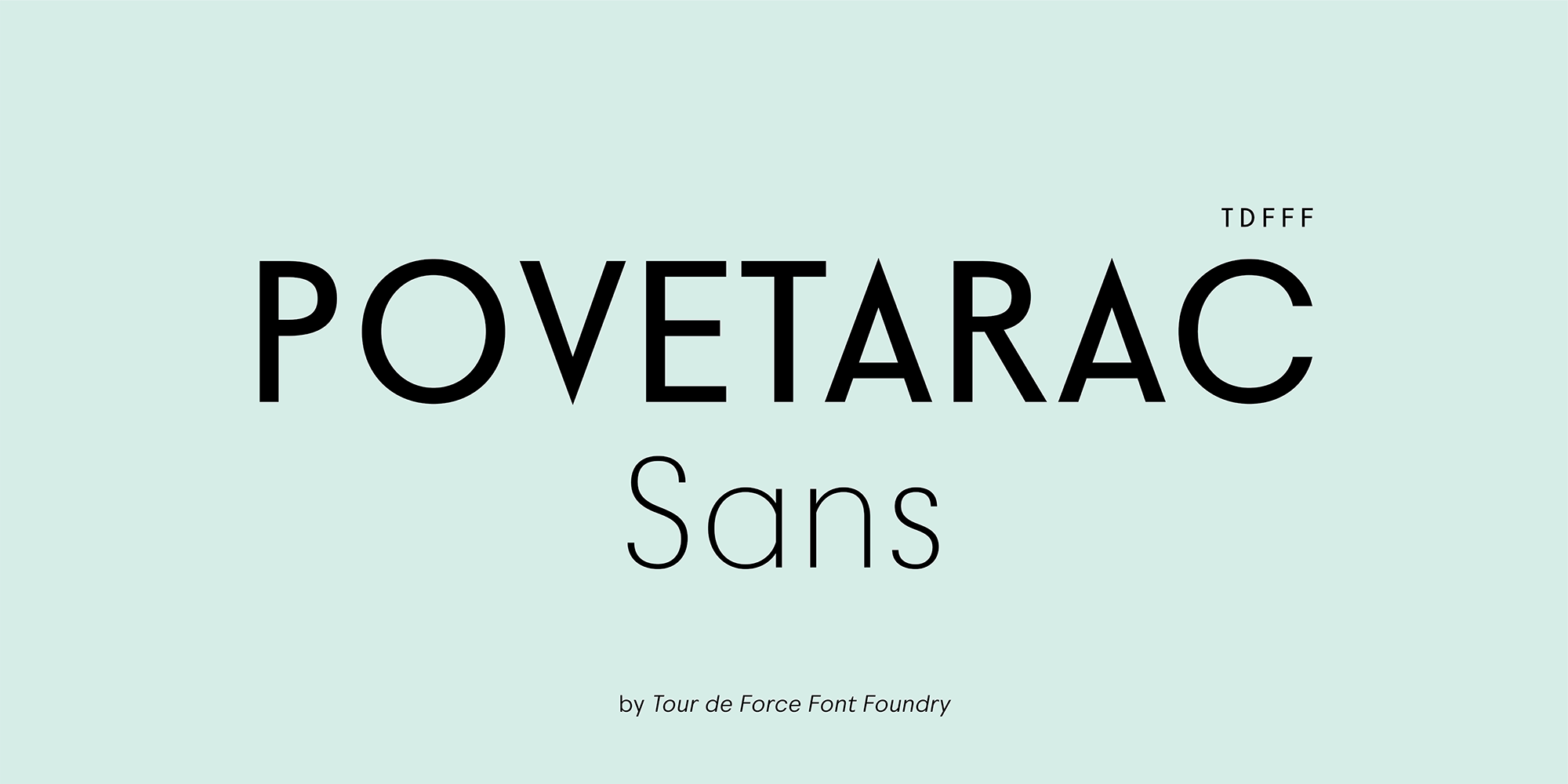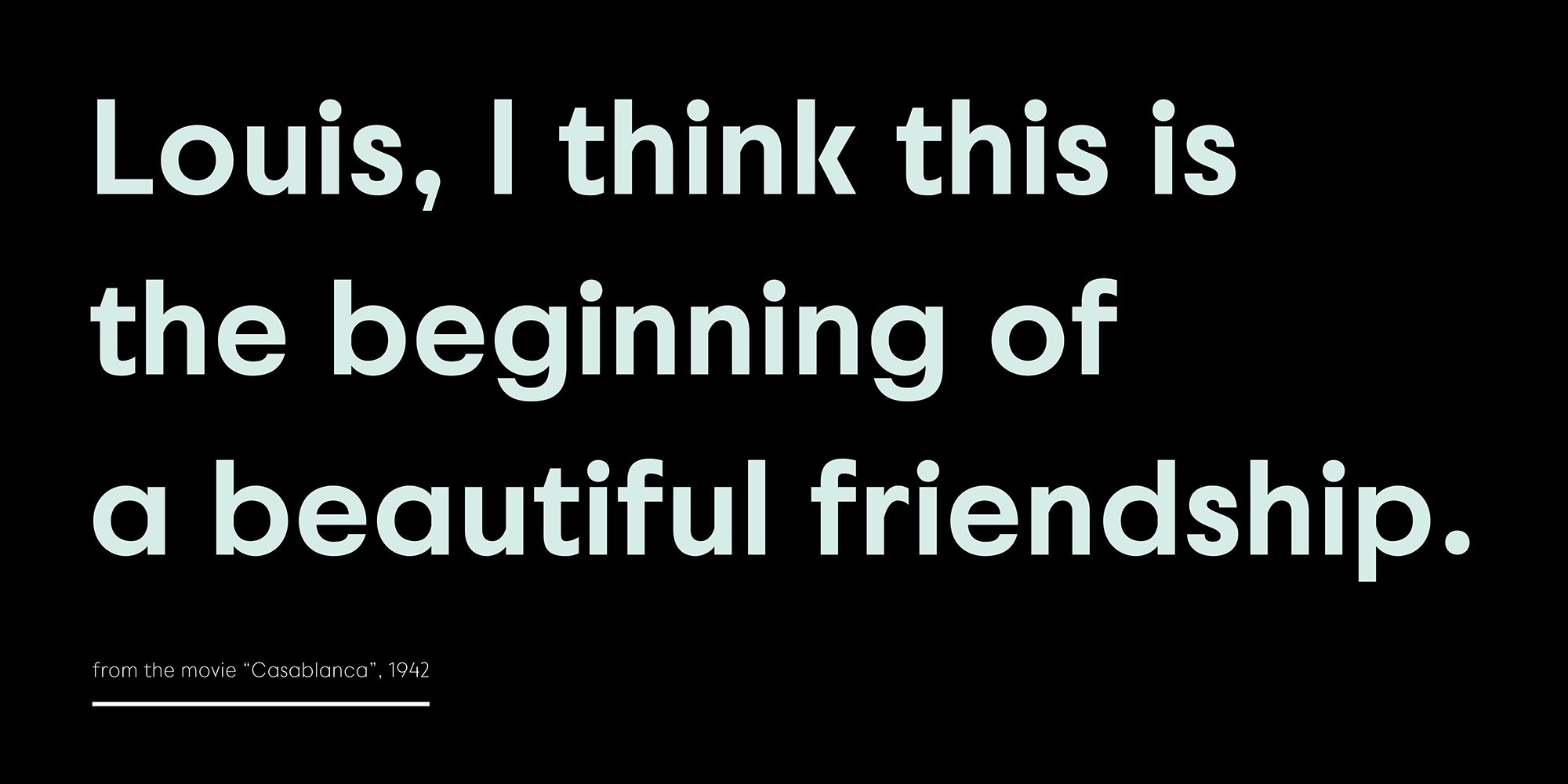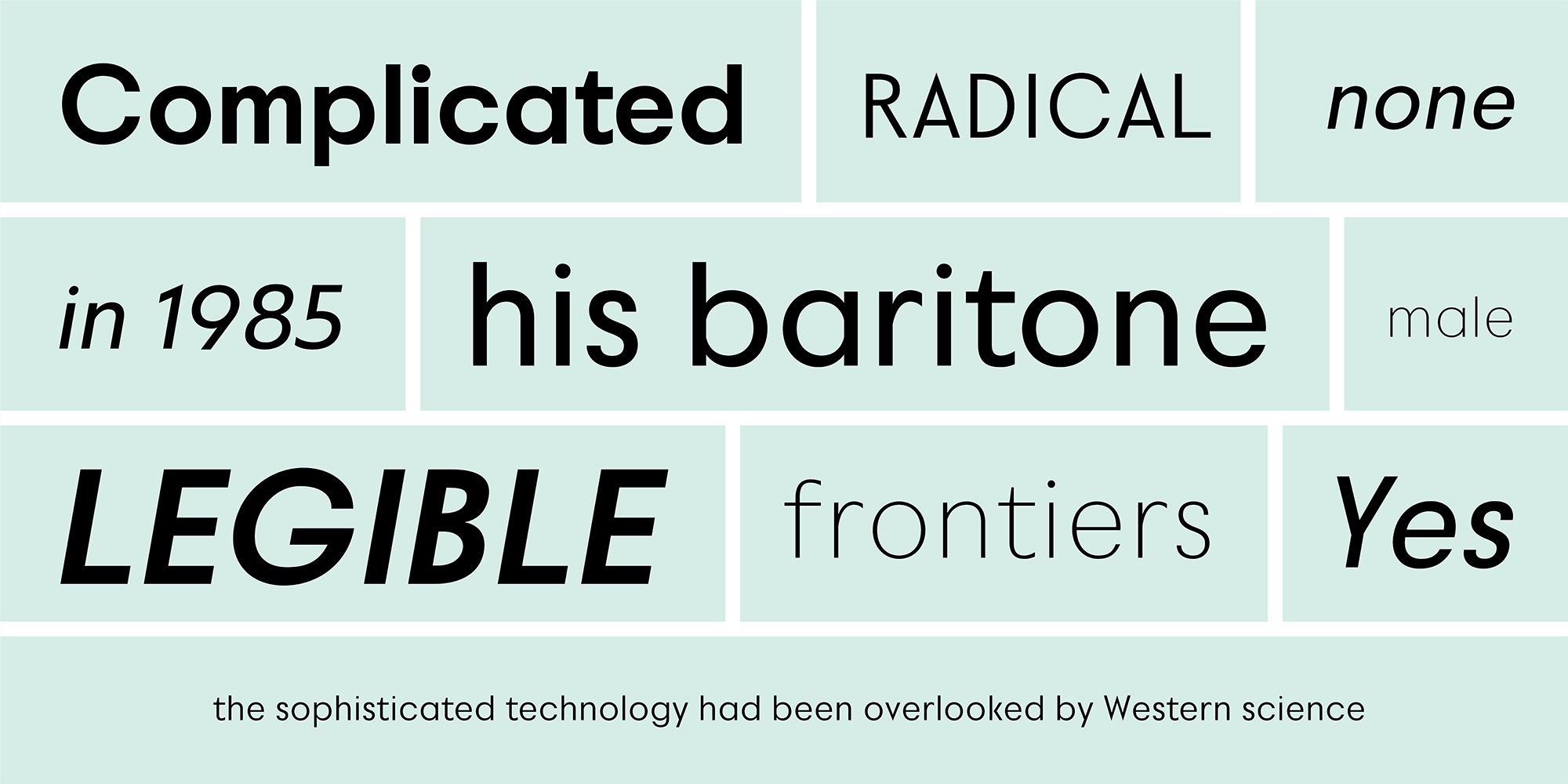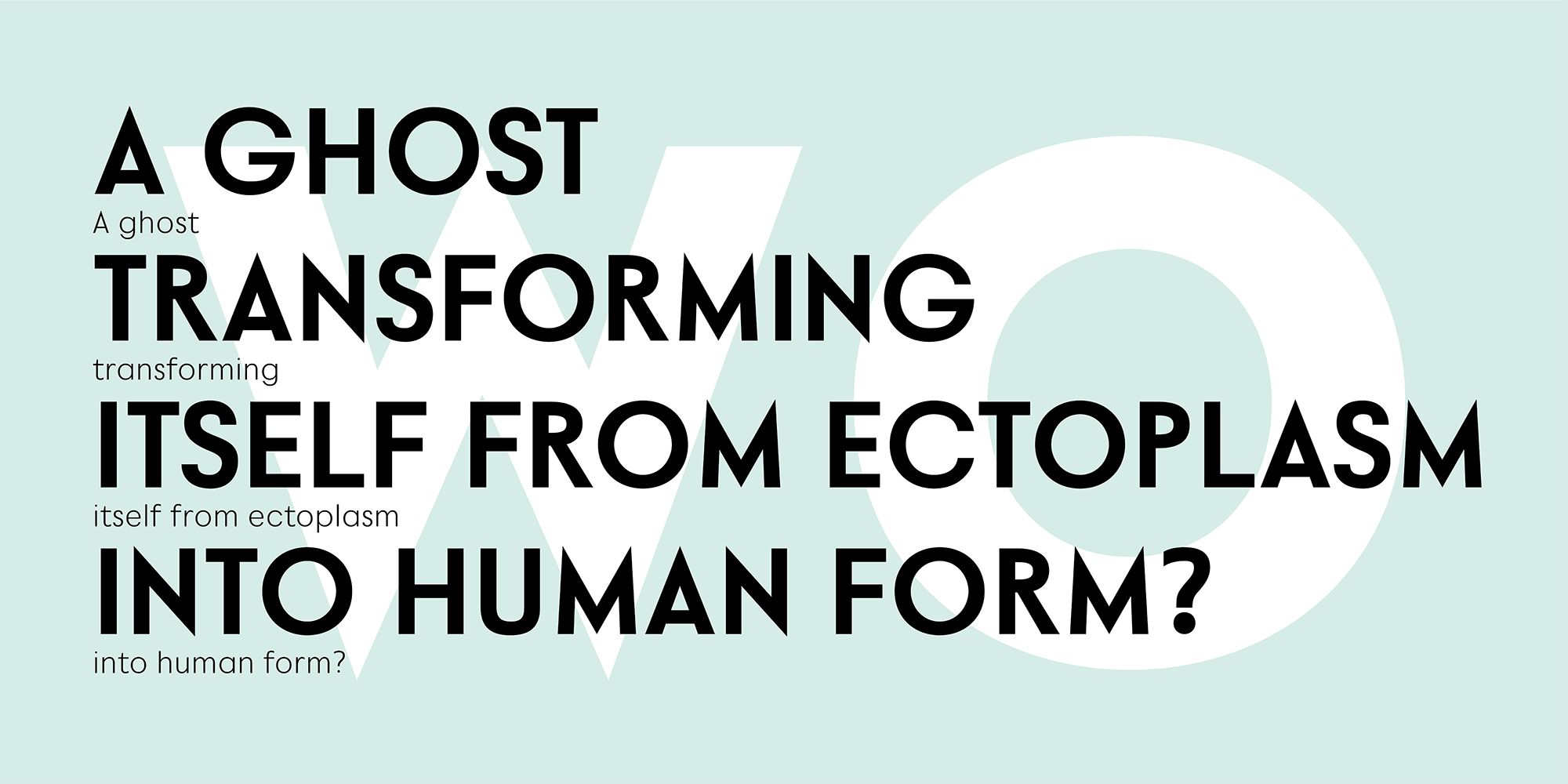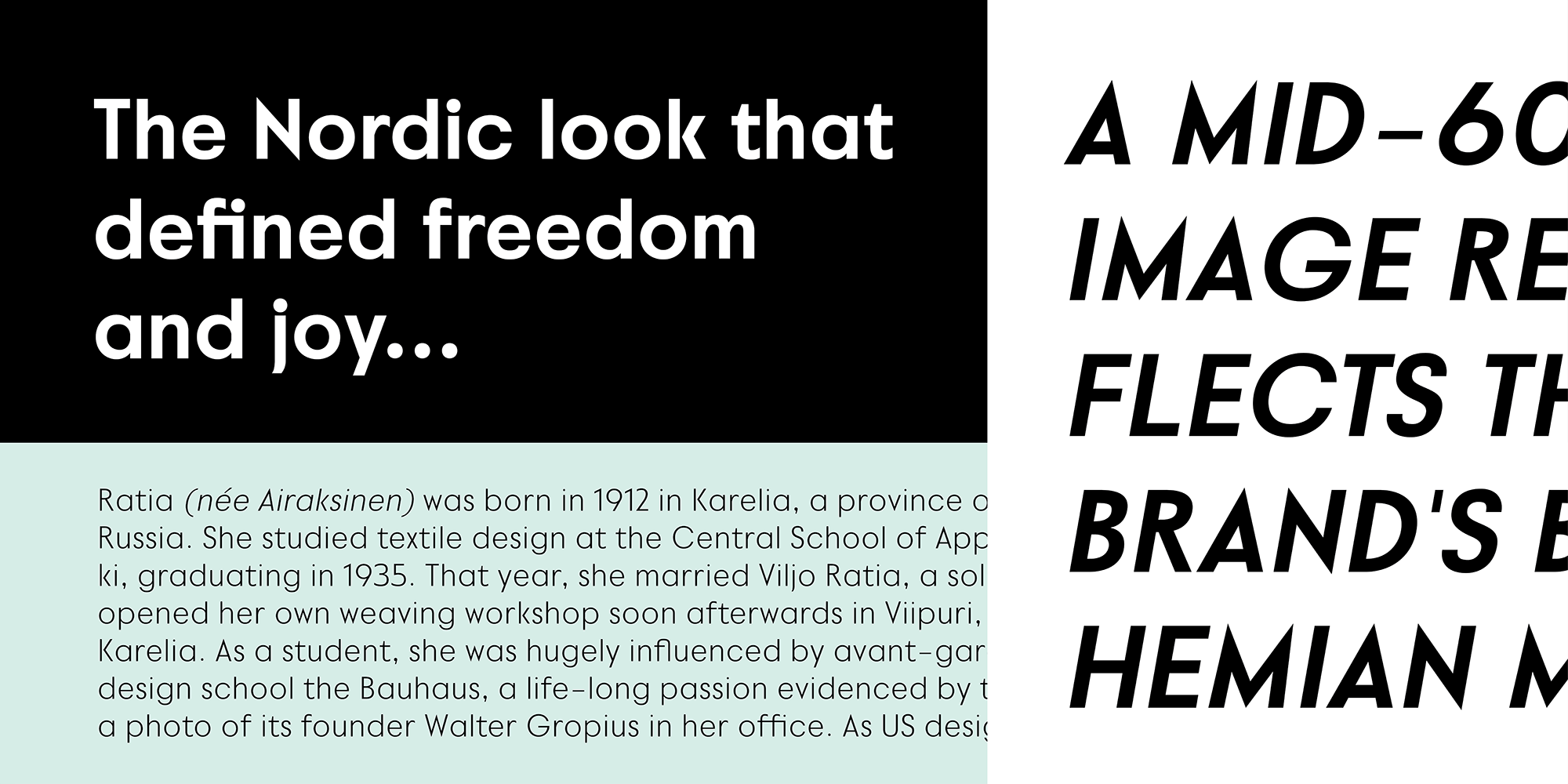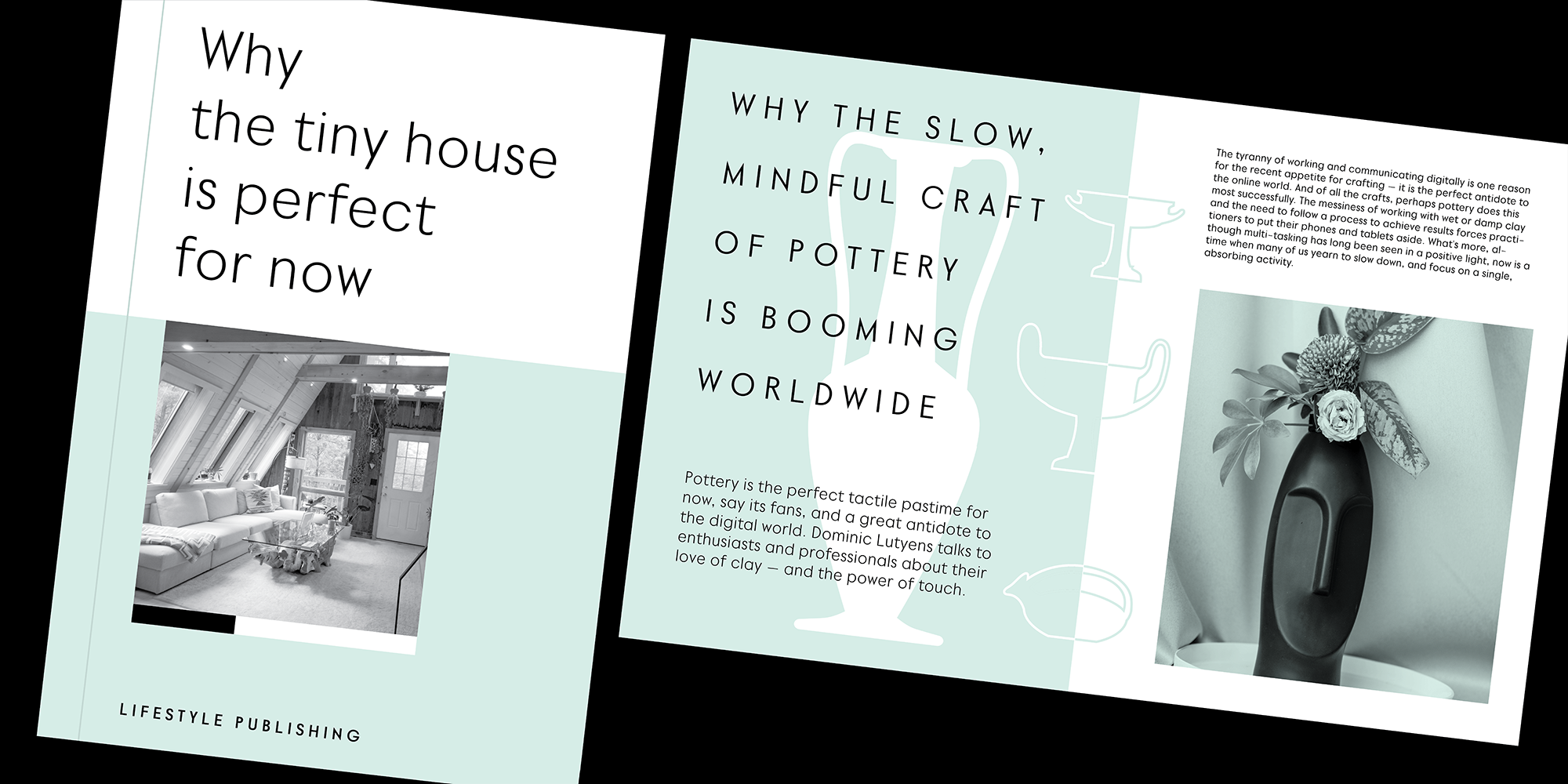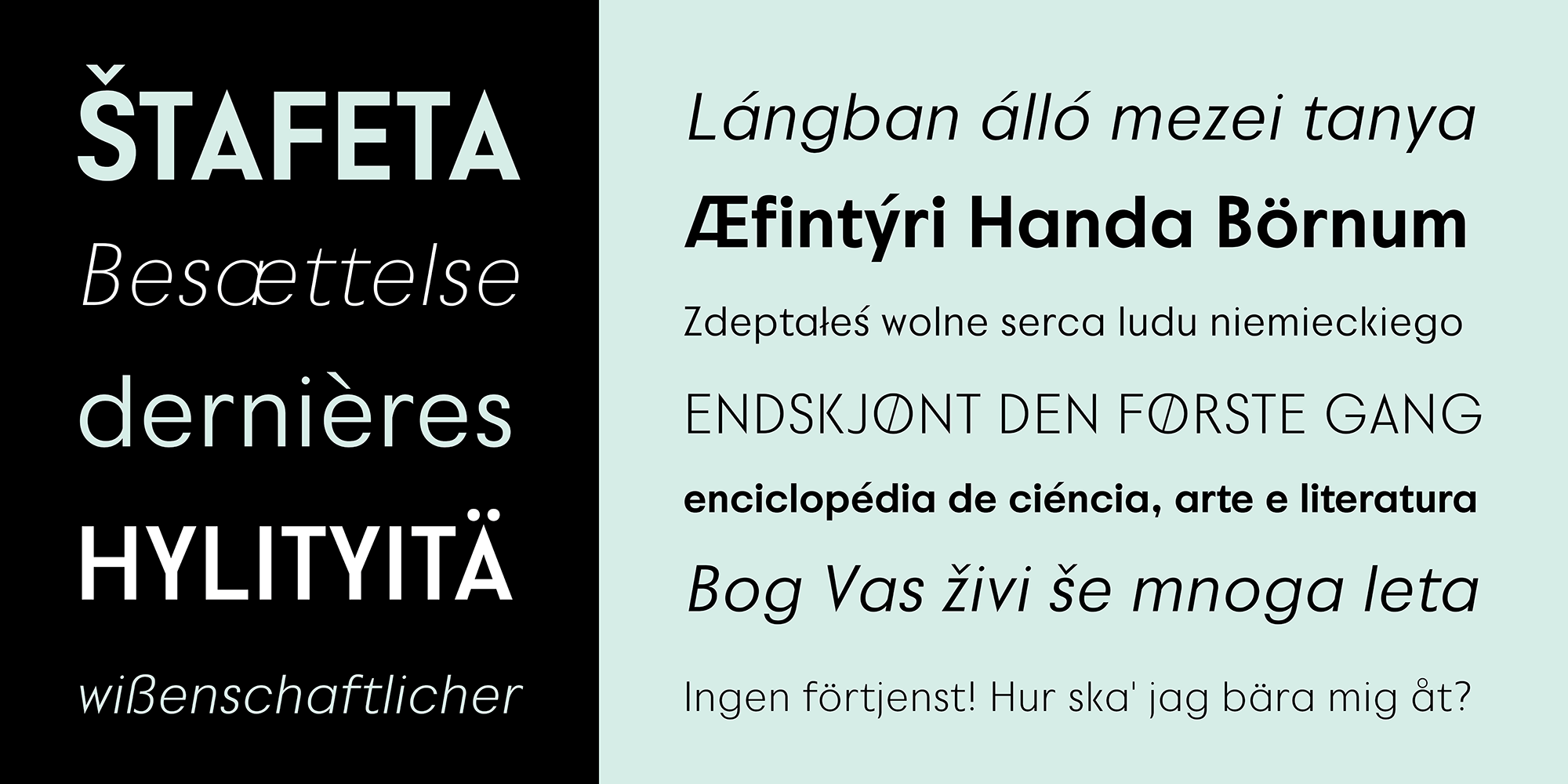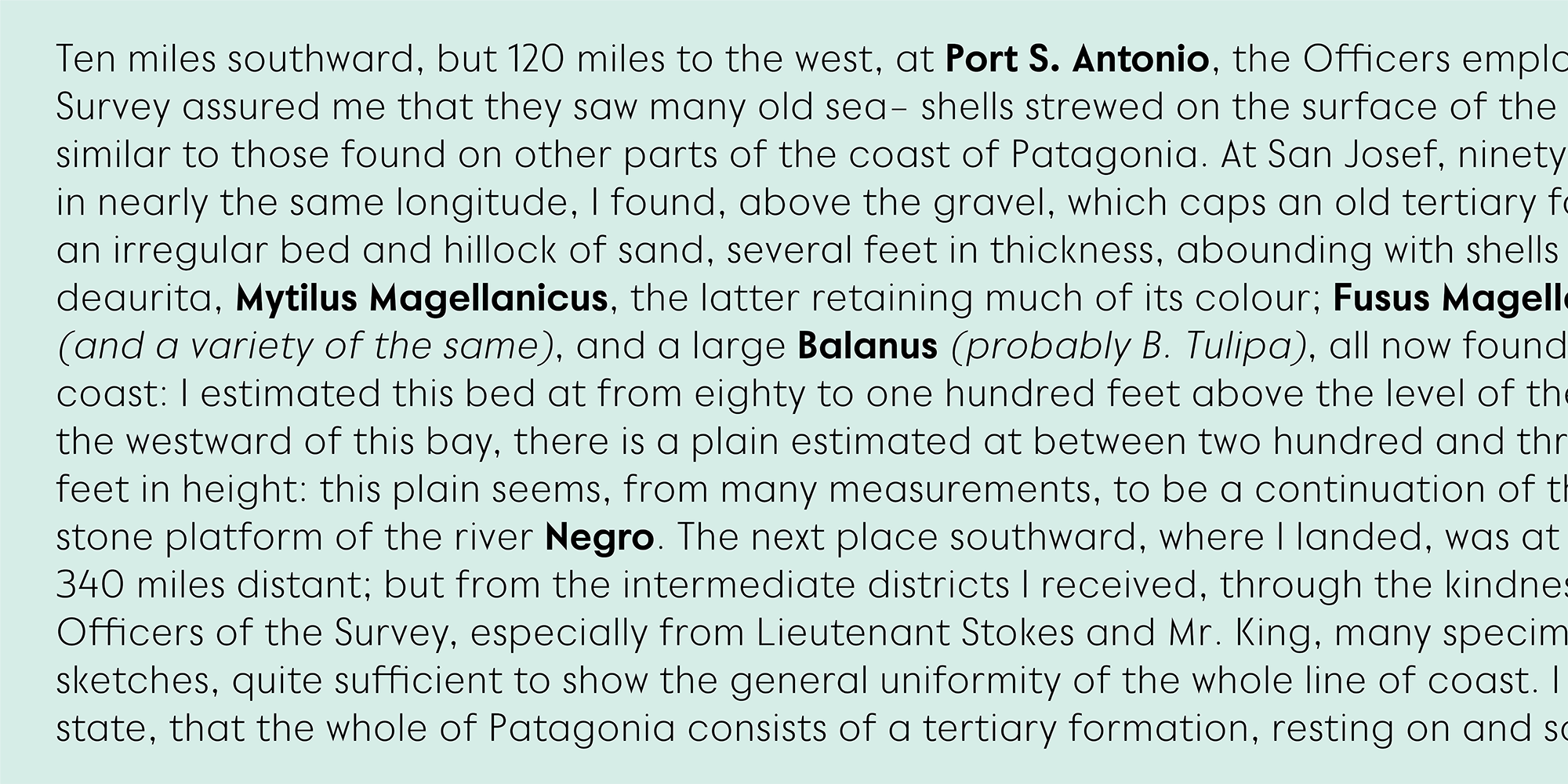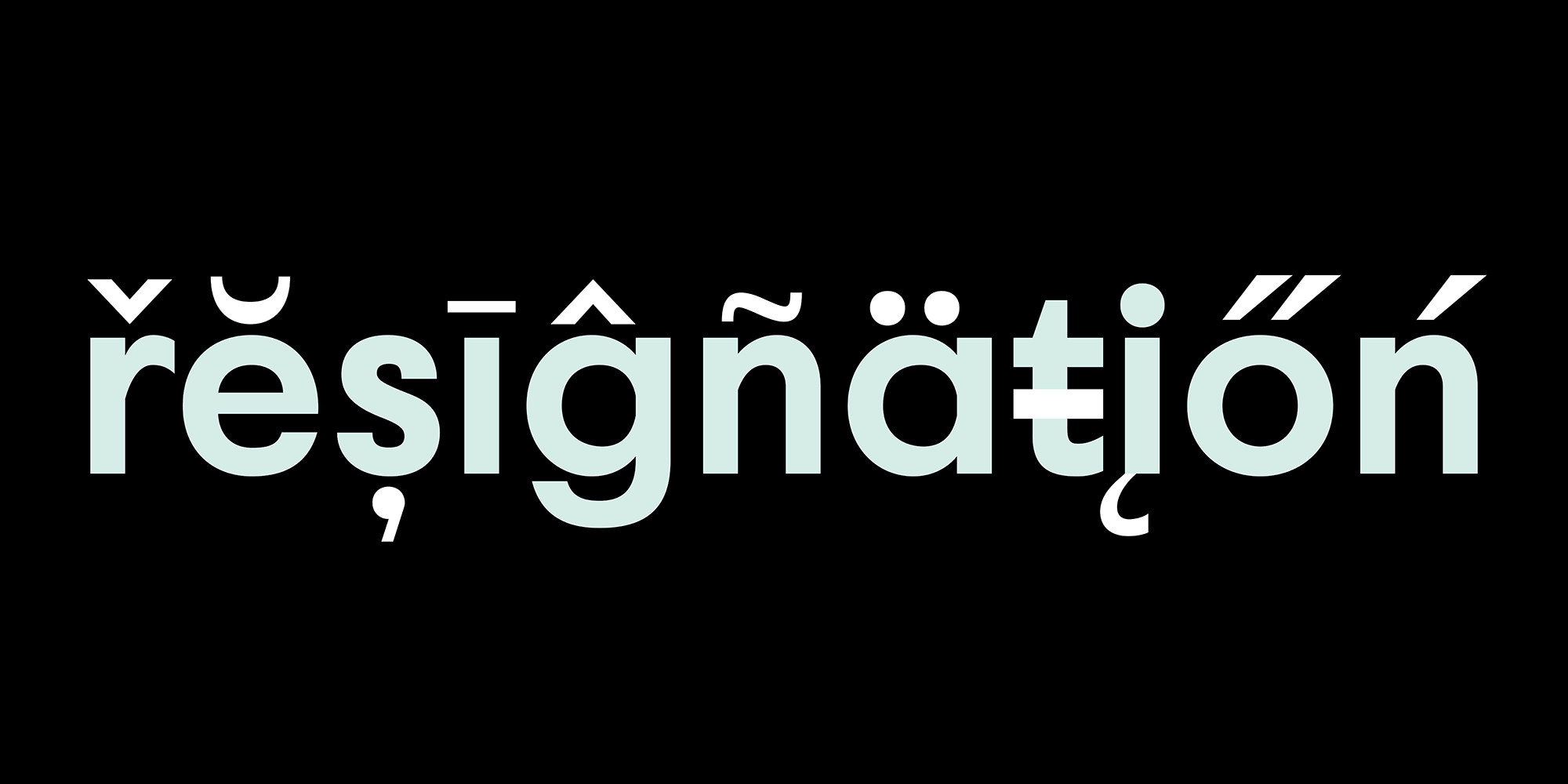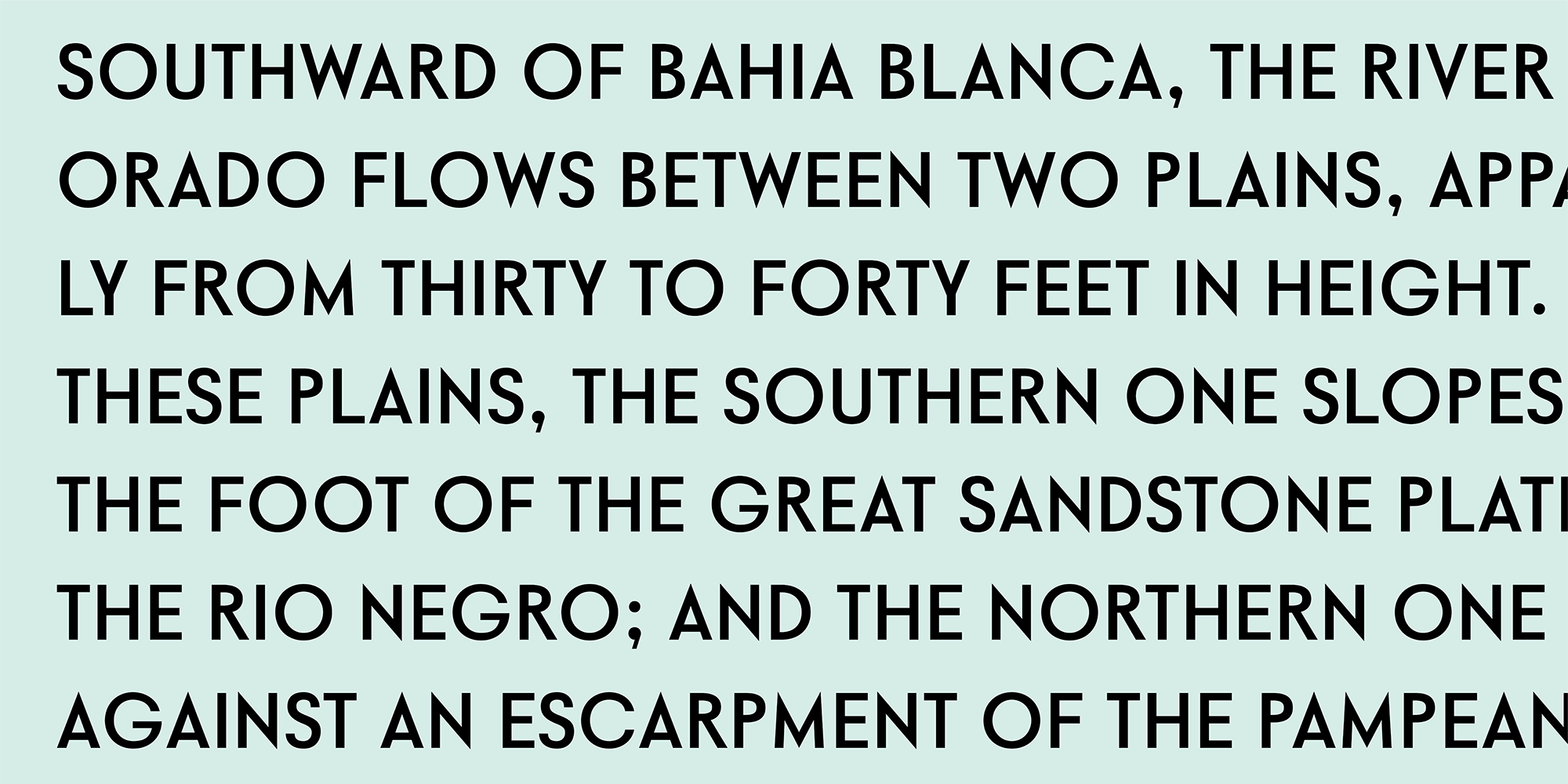
Povetarac Sans font family is part of Povetarac Superfamily together with Povetarac Didone and Povetarac Didone.
Available in 6 weights with matching italics, Povetarac Sans relays on lively uppercase proportions that took inspiration from vintage typefaces. It is well balanced, elegant and fully recognizable sans serif family. With sharp overhang, Povetarac Sans works pretty well in all situations – from editorial use to branding, websites or just titles.
Comes with Fractions and extended Latin character map.